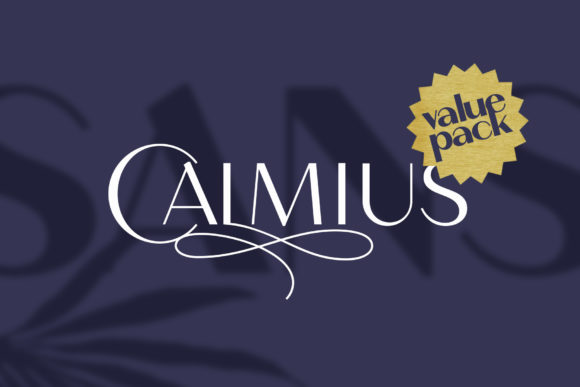
Meet Calmius Font, the captivating sans-serif font family that breathes elegance and modernity into your designs. NREY's artistic vision shines through in every curve and stroke, striking a perfect balance between contemporary and vintage aesthetics.
Immerse yourself in the beauty of Calmius, a font that dances with sophistication. Its clean lines and harmonious proportions create a visual symphony, guiding the eyes effortlessly across your designs. Experience the allure of Calmius, where timeless elegance meets modern flair.
With Calmius, unleash your creativity and paint your words with style. Its versatility knows no bounds, making it the perfect choice for wedding invitations, fashion catalogs, magazine layouts, branding projects, and more. Let Calmius elevate your designs, adding a touch of grace and refinement that captivates and inspires.
Step into a world of endless possibilities with Calmius. Transform ordinary text into captivating headlines, craft brochures that exude professionalism, and create social media posts that demand attention. Calmius is your secret weapon to unlock a world of creative expression.
Don't settle for ordinary fonts. Choose Calmius and embrace a new era of design excellence. Experience the magic of typography, where beauty and functionality intertwine seamlessly. Calmius is more than just a font; it's an invitation to explore the boundless realms of creativity.